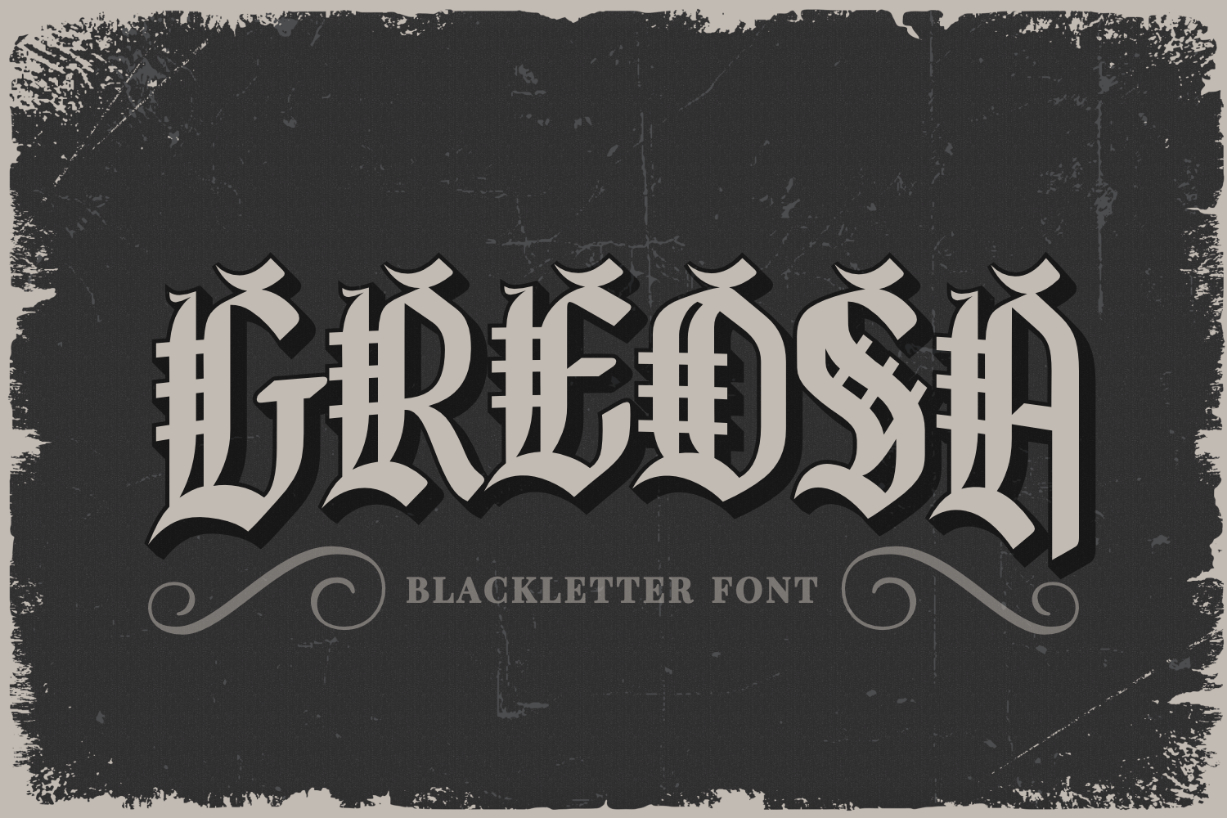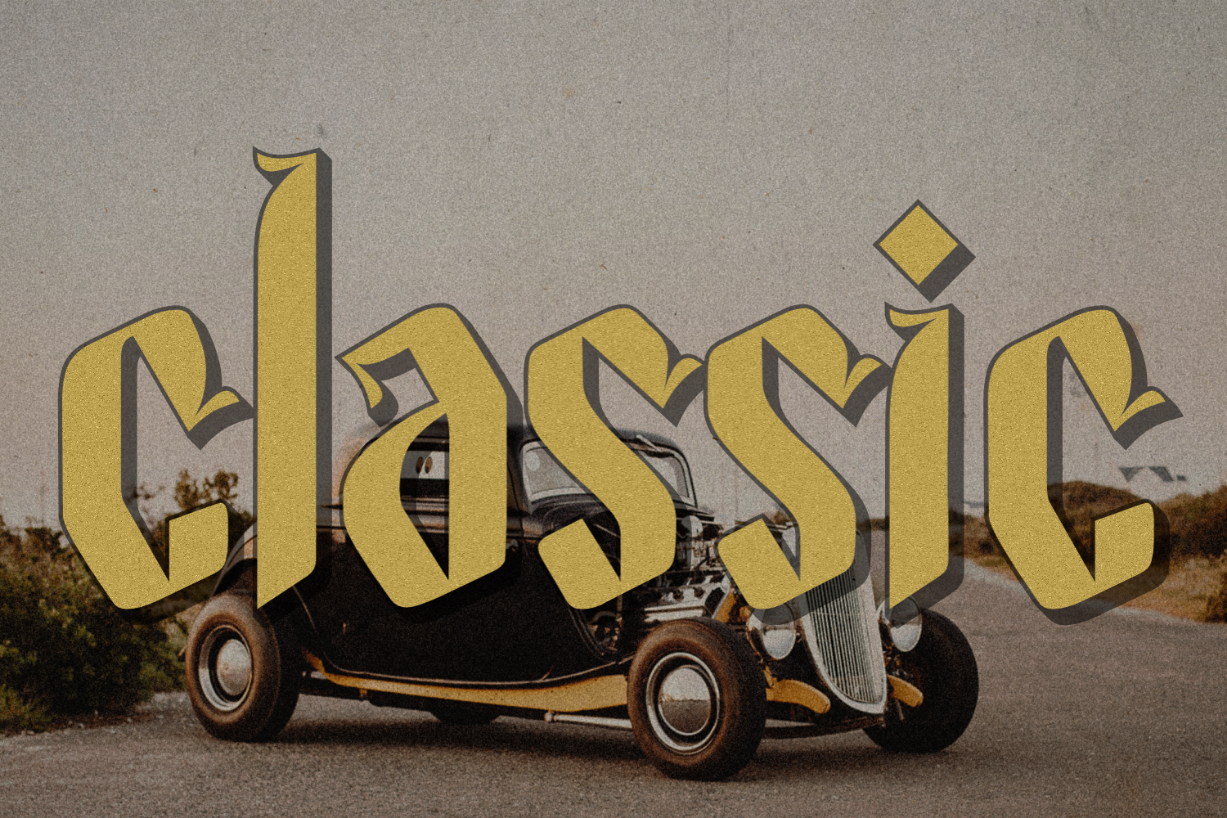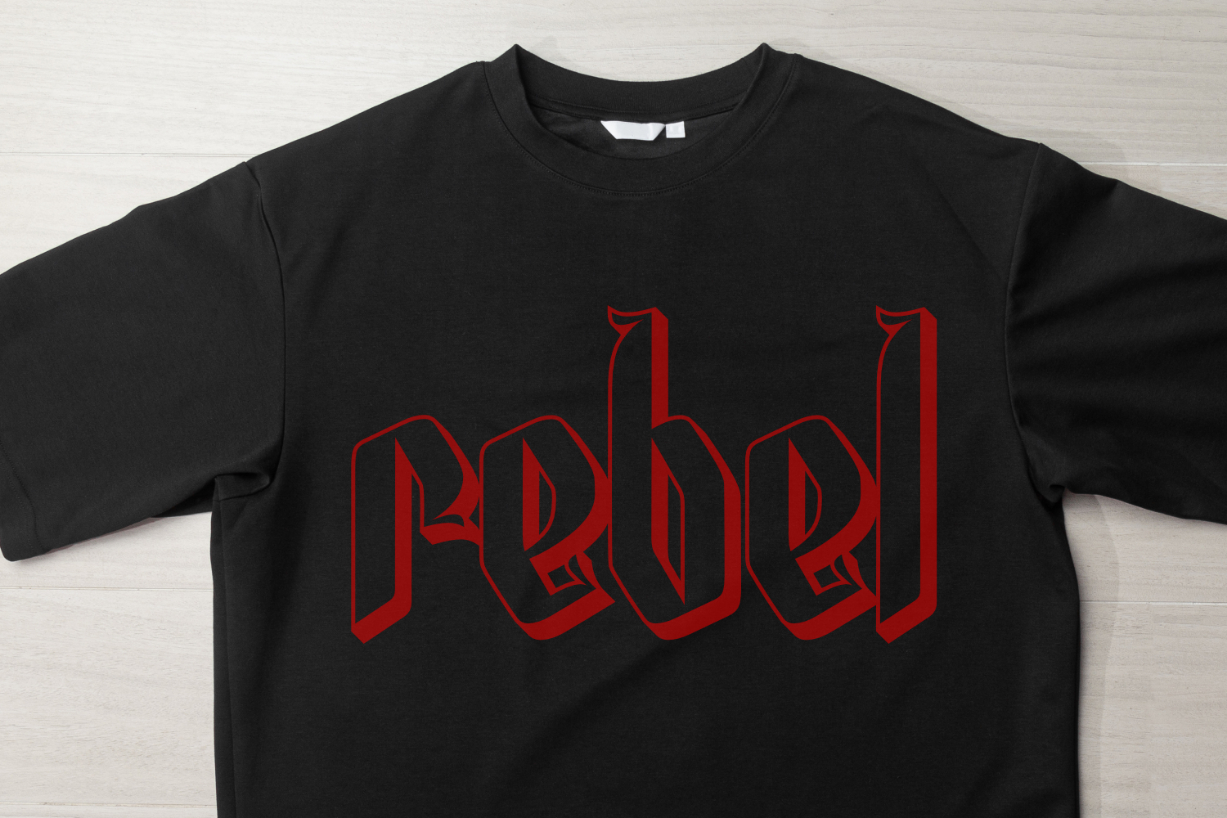
Greosa Font
About Greosa Font
Greosa is a classic blackletter font with a vintage look. Create remarkable typography designs with this captivating font! It looks perfect on various projects such as posters, t-shirts, product packaging, advertisements, cards, headers, headlines, titles, book covers, and more.